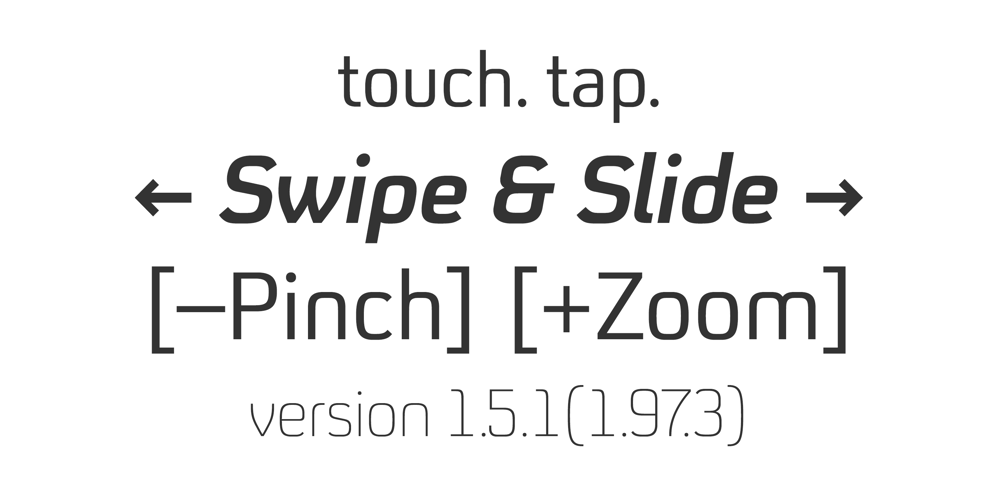
FS Untitled
FS Untitled font
FS Untitled Font Family was designed by Jason Smith, Fernando Mello and published by Fontsmith. FS Untitled contains 24 styles and family package options. Developer-friendlyThe studio has developed a wide array of weights for FS Untitled – 12 in all, in roman and italic – with the intention of meeting every on-screen need. All recognisably part of a family, each weight brings a different edge or personality to headline or body copy.There’s more. Type on screen has a tendency to fill in or blow so for each weight, there’s the choice of two marginally different versions, allowing designers and developers to go up or down a touch in weight. They’re free to use the font at any size on any background colour without fear of causing optical obstacles.And to make life even easier for developers, the 12 weight pairs have each been designated with a number from 100 (Thin) to 750 (Bold), corresponding to the system used to denote font weight in CSS code. Selecting a weight is always light work.Easy on the pixels‘It’s a digital-first world,’ says Jason Smith, ‘and I wanted to make something that was really functional for digital brands’. FS Untitled was made for modern screens. Its shapes and proportions, x-height and cap height were modelled around the pixel grids of even low-resolution displays. So there are no angles in the A, V and W, just gently curving strokes that fit, not fight, with the pixels, and reduce the dependency on font hinting.Forms are simplified and modular – there are no spurs on the r or d, for example – and the space between the dot of the i and its stem is larger than usual. The result is a clearer, more legible typeface – functional but with bags of character.Screen beginningsFS Untitled got its start on the box. Its roots lie in Fontsmith’s creation of the typeface for Channel 4’s rebrand in 2005: the classic, quirky, edgy C4 headline font, with its rounded square shapes (inspired by the classic cartoon TV shape of a squidgy rectangle), and a toned-down version for use in text, captions and content graphics.The studio has built on the characteristics that made the original face so pixel-friendly: its blend of almost-flat horizontals and verticals with just enough openness and curve at the corners to keep the font looking friendly. The curves of the o, c and e are classic Fontsmith – typical of the dedication its designers puts into sculpting letterforms.Look out for…FS Untitled wouldn’t be a Fontsmith typeface if it didn’t have its quirks, some warranted, some wanton. There’s the rounded junction at the base of the E, for example, and the strong, solid contours of the punctuation marks and numerals.Notice, too, the distinctive, open shape of the A, V, W, X and Y, created by strokes that start off straight before curving into their diagonal path. Some would call the look bow-legged; we’d call it big-hearted.